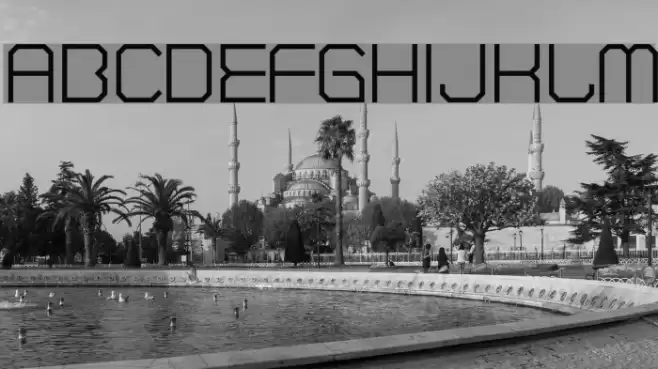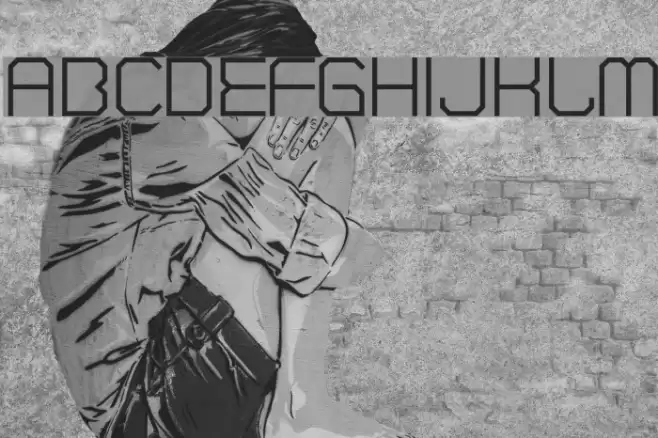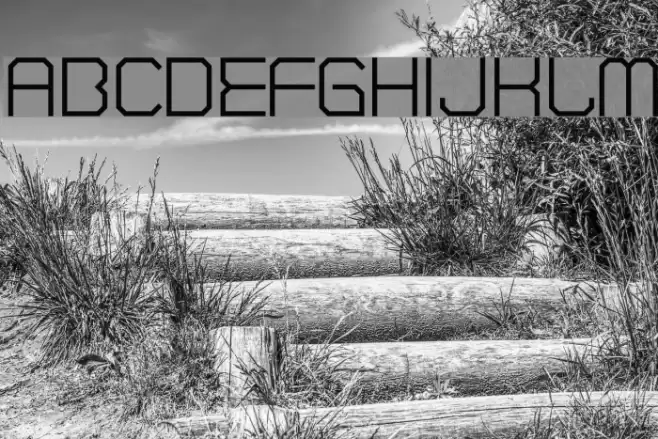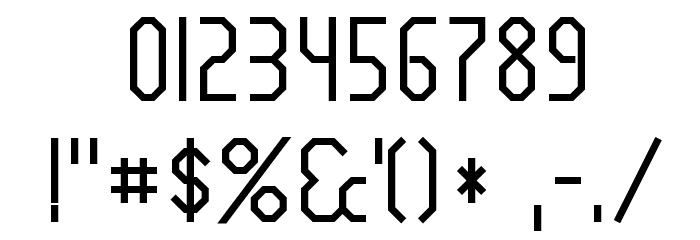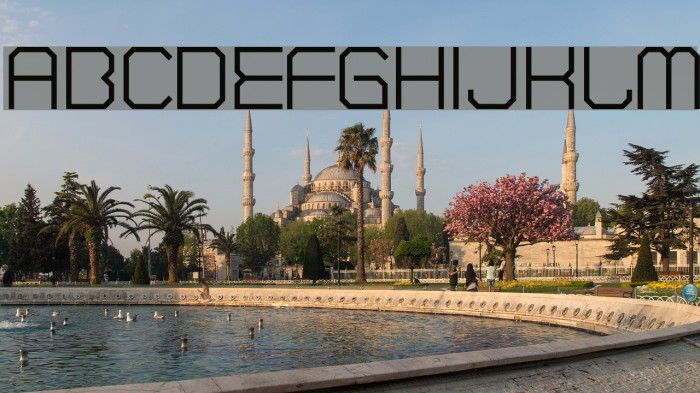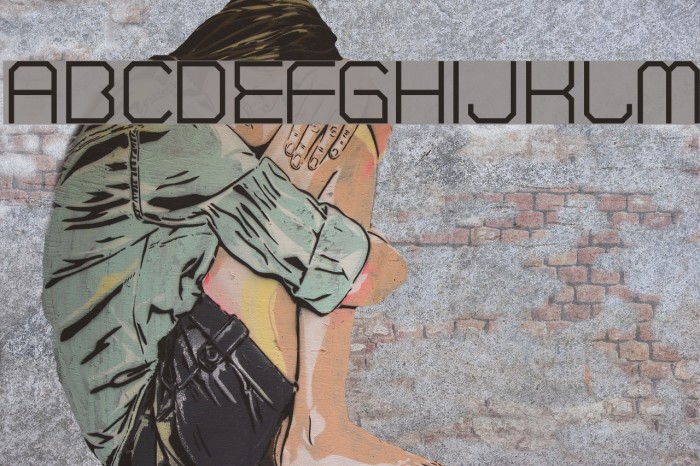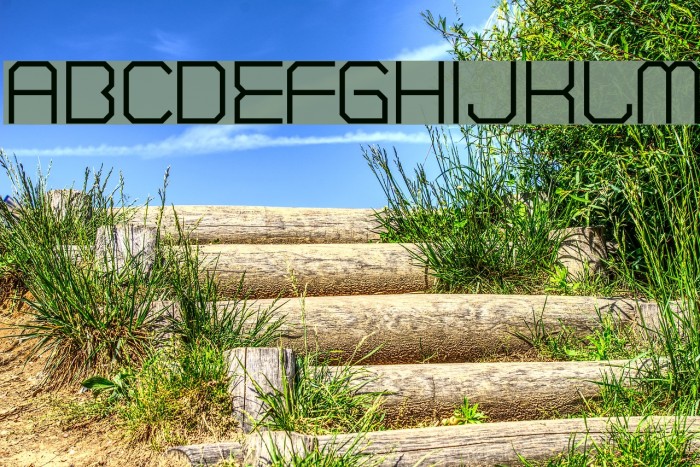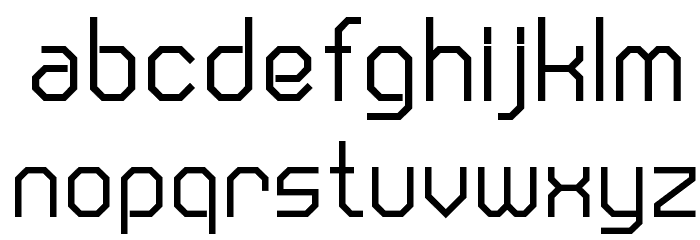
Cranberry Gin Font
Cranberry Gin Description
This font features a geometric and angular design, characterized by its sharp edges and clean lines. The uppercase letters are uniform in height, creating a cohesive and structured appearance. The lowercase letters maintain the angular theme, with distinct and recognizable forms. Numbers and special characters are crafted with the same precision, ensuring consistency across all elements. The font's design is modern and minimalistic, making it suitable for contemporary projects that require a unique and edgy aesthetic.
A geometric and angular font with sharp edges and a modern aesthetic from Futuristic fonts.
- Proposed Projects: Ideal for tech-related branding, futuristic designs, digital interfaces, and modern posters.